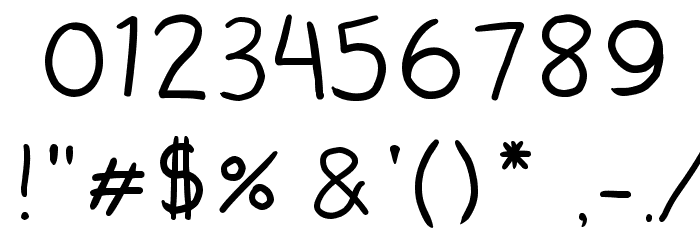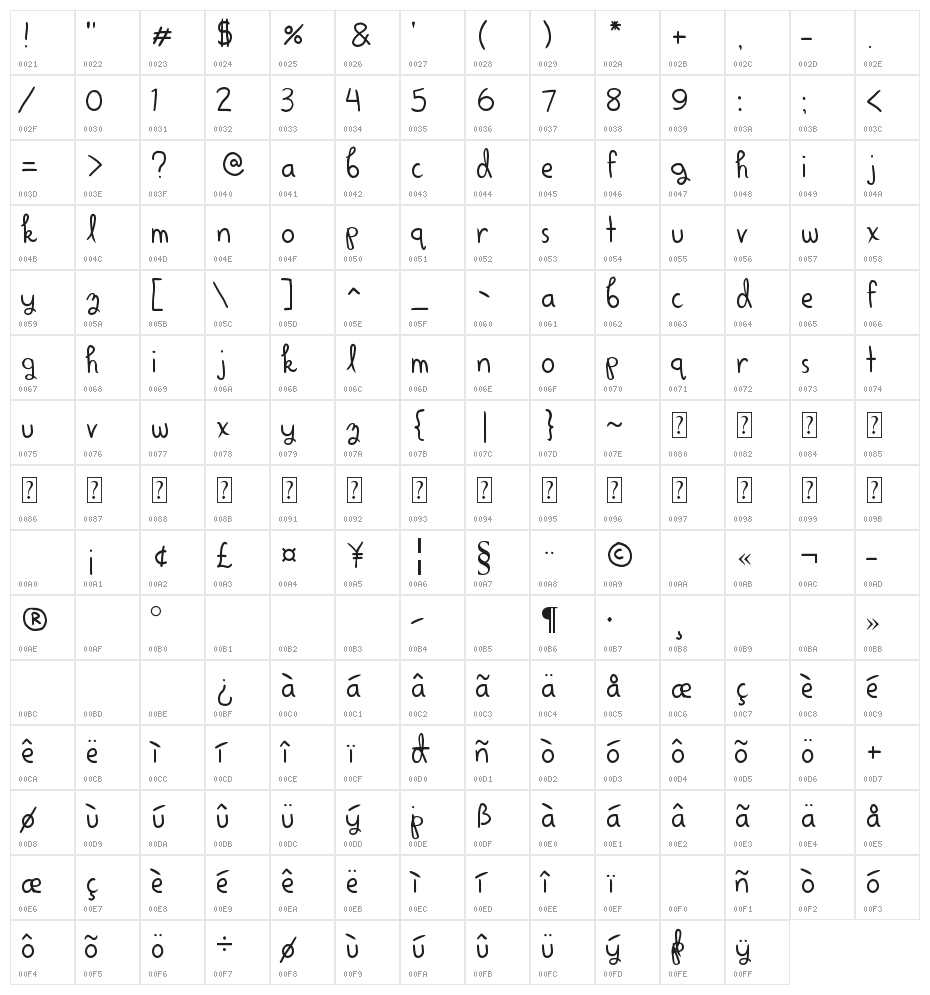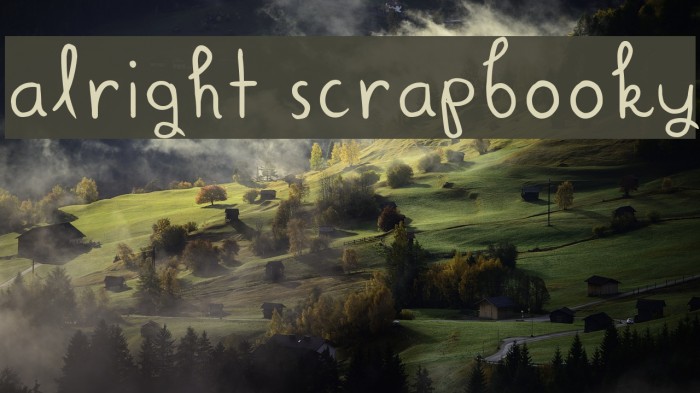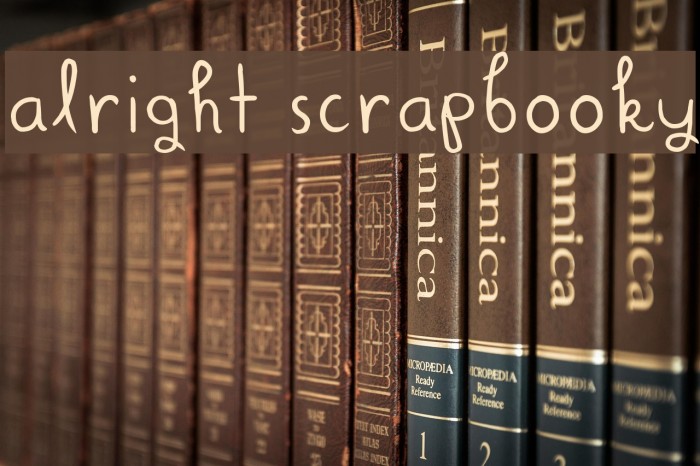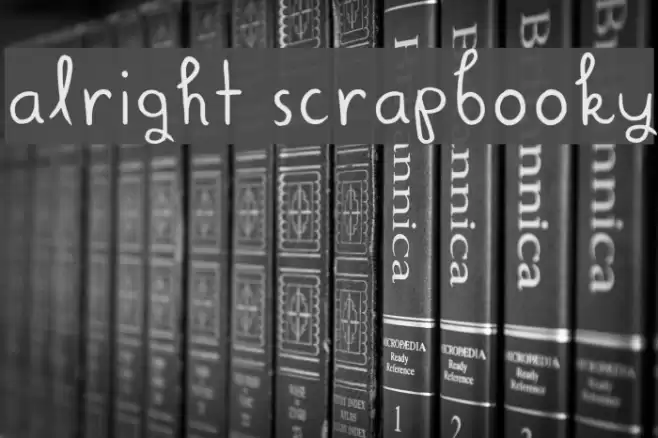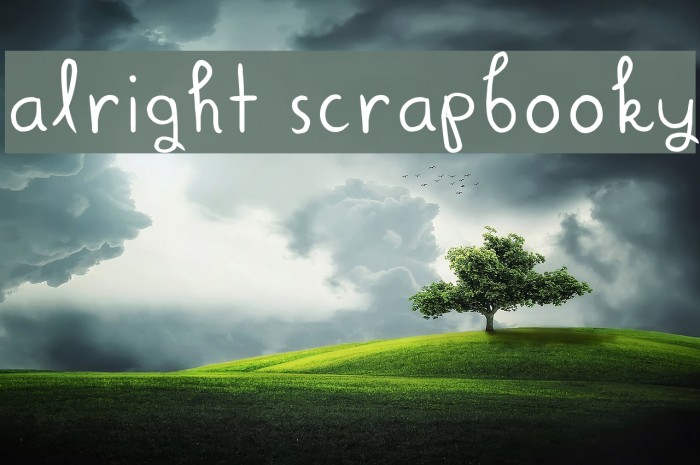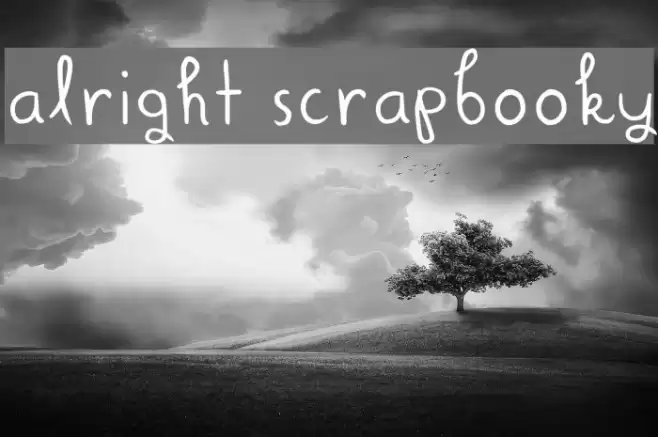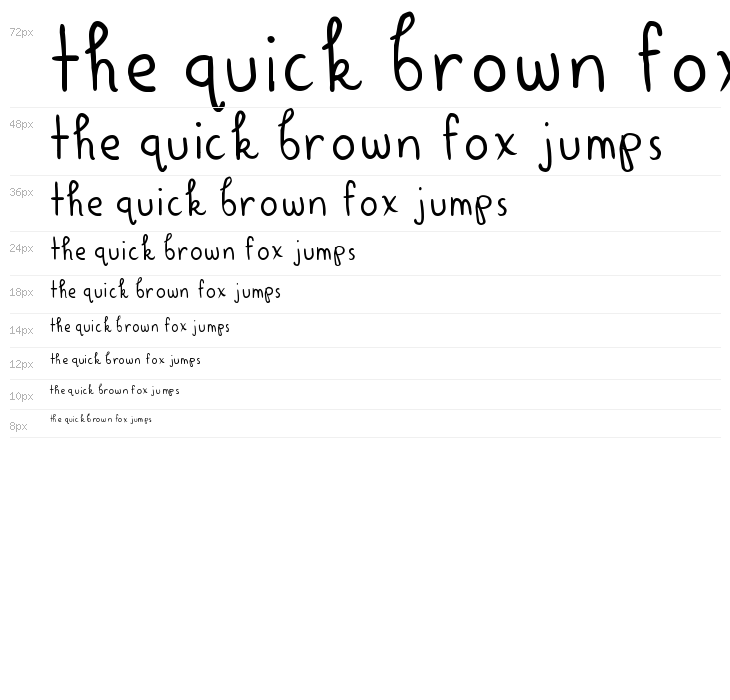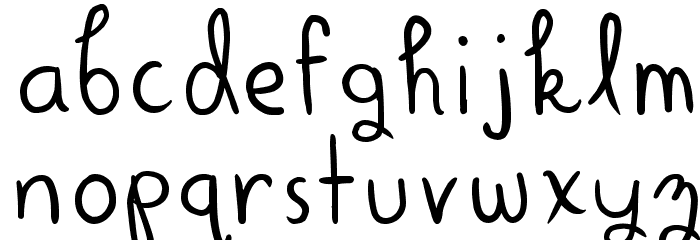
Alright Scrapbooky Font
Alright Scrapbooky Description
This font exudes a playful and whimsical charm, characterized by its handwritten style that mimics the look of casual, free-spirited penmanship. The letters are slightly irregular, adding to the authentic, hand-drawn feel. Each character has a unique flair, with loops and curves that give it a lively personality. The font maintains a consistent stroke width, which contributes to its approachable and friendly appearance. It is well-suited for projects that require a personal touch, such as scrapbooking, greeting cards, or children's book illustrations. The overall style is informal and inviting, making it perfect for conveying warmth and creativity.
Use CaseHeadlines, Creative projects, Informal text
Proposed ProjectsIdeal for scrapbooking, greeting cards, children's books, and creative projects.